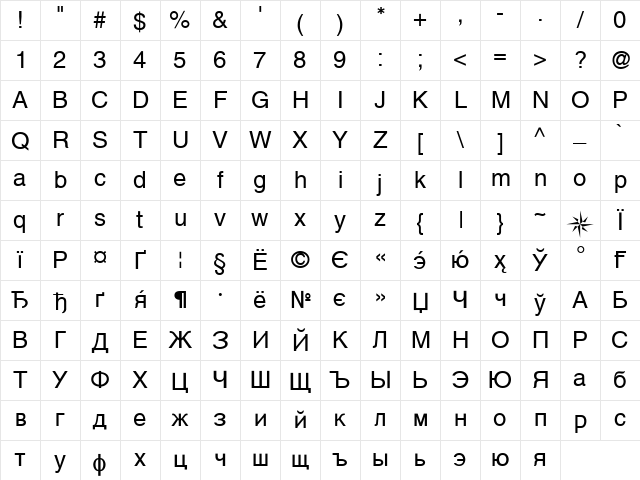
Complete CyrillicHelvet Medium glyph index. Displaying only characters natively supported by CyrillicHelvet Medium font.
CyrillicHelvet is a composed and adaptable typeface that performs quietly and consistently across a wide range of design contexts.